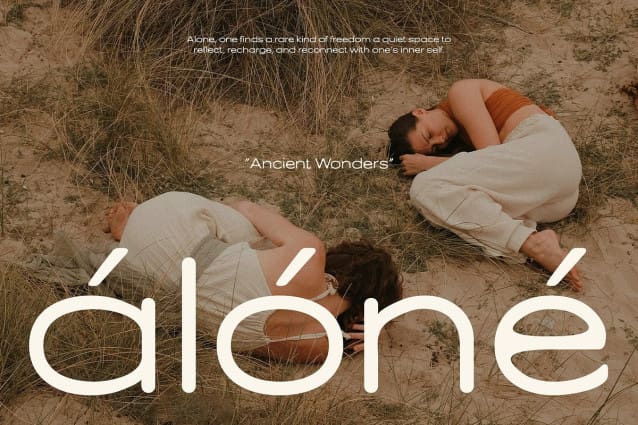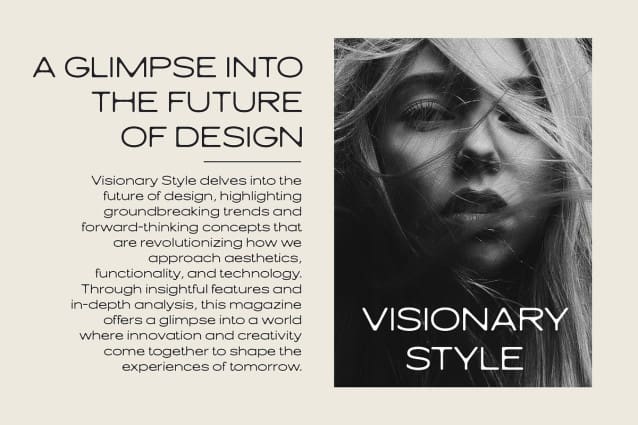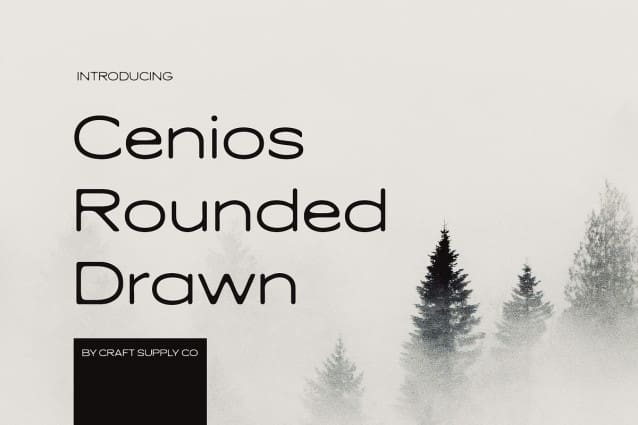
Cenios Rounded Drawn Font
Cenios Rounded Drawn Font is a modern sans-serif font that features expanded letterforms, providing ample spacing for superior readability. The expanded structure ensures that each letter is easily distinguishable, making it perfect for designs where clarity and legibility are essential. The wide spacing not only improves readability but also adds a clean, open aesthetic that works well in both print and digital applications. Whether for large headlines or body text, this rounded drawn font ensures your message is always clear and easy to digest.
Geometric Precision Meets Rounded Softness This font combines geometric precision with rounded edges, creating a balanced, contemporary design that feels both polished and approachable. The geometric shapes lend structure and order, while the rounded corners soften the overall look, giving the font a friendly, welcoming feel.
Drawn Effect for a Unique Handcrafted Touch Adding to its distinctive character, this rounded drawn font features a subtle drawn effect that gives the font a handcrafted, organic feel. This touch of artistry sets it apart from more traditional geometric fonts, introducing an element of uniqueness and creativity. The drawn effect brings personality to the design, making it perfect for brands or projects that want to feel both professional and personable.